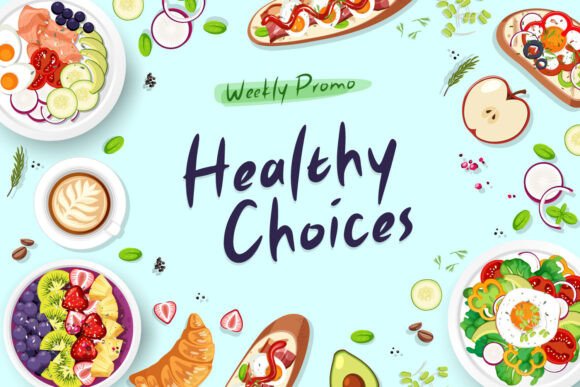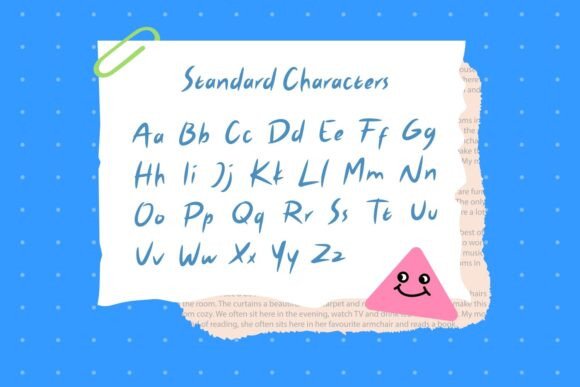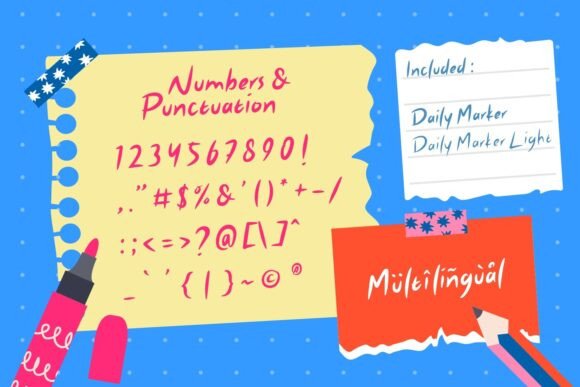
Introduction to Daily Marker Font Font
Fonts play a crucial role in design, and the Daily Marker Font font is a typeface that brings both character and versatility to any project. Whether you’re working on a branding project, a website, or a print design, the Daily Marker Font font offers a unique style that can elevate your work.
Daily Marker is crafted from an everyday marker pen, capturing casual vibes with its bold and natural presence.
Key Features of Daily Marker Font Font
Why Choose Daily Marker Font Font?
The Daily Marker Font font is more than just a typeface – it’s a design tool that helps you communicate your message with style and clarity. Its unique character set and versatile design make it suitable for a wide range of applications, from elegant invitations to bold headlines.
With its carefully crafted letterforms and balanced proportions, the Daily Marker Font font ensures readability and visual appeal across all mediums.
What makes Daily Marker Font font special?
The Daily Marker Font font stands out with its unique design, exceptional readability, and versatility across various design applications.